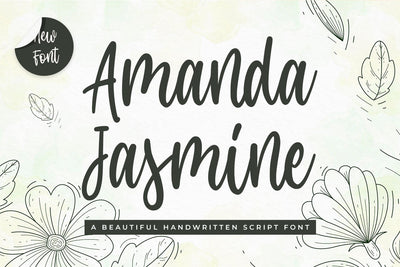
Amanda Jasmine Modern Script Font
Amanda Jasmine is a sweet and beautiful script font. Fall in love with its cute and cherry style and use it to create joyful invitations, beautiful stationary art, eye-catching social media posts, and much more!